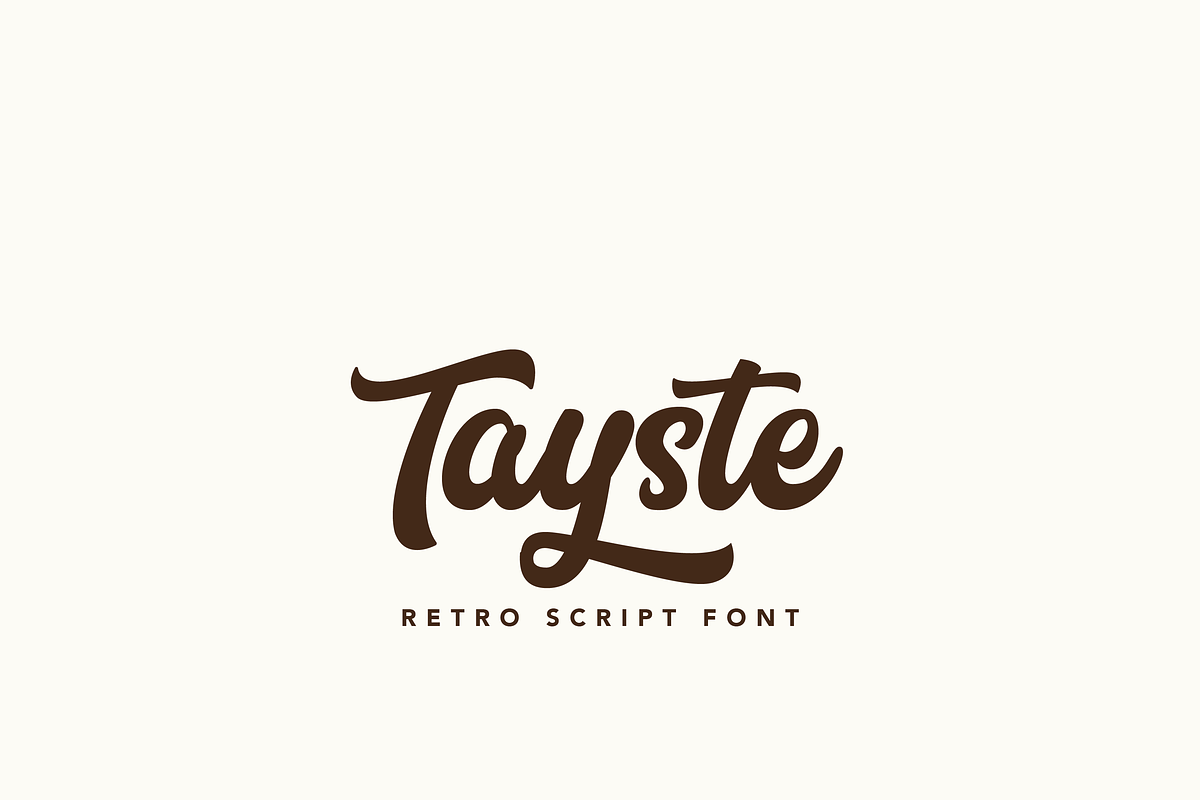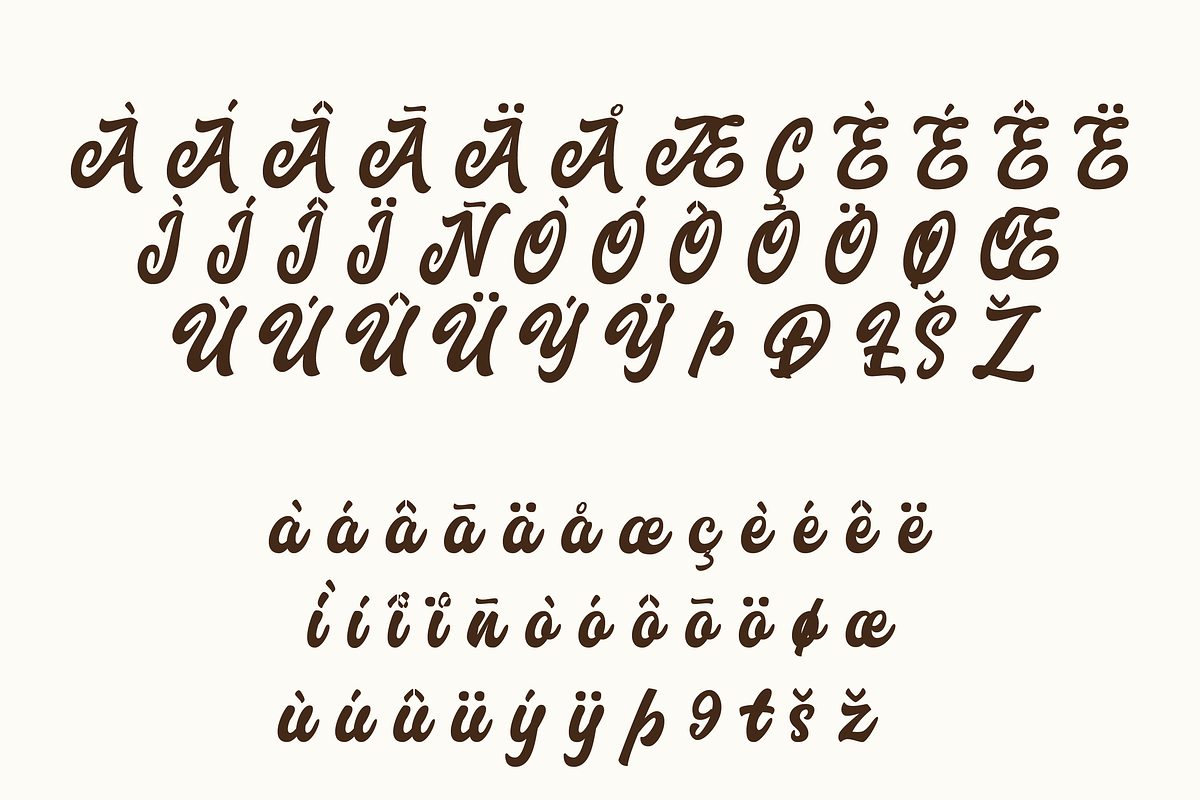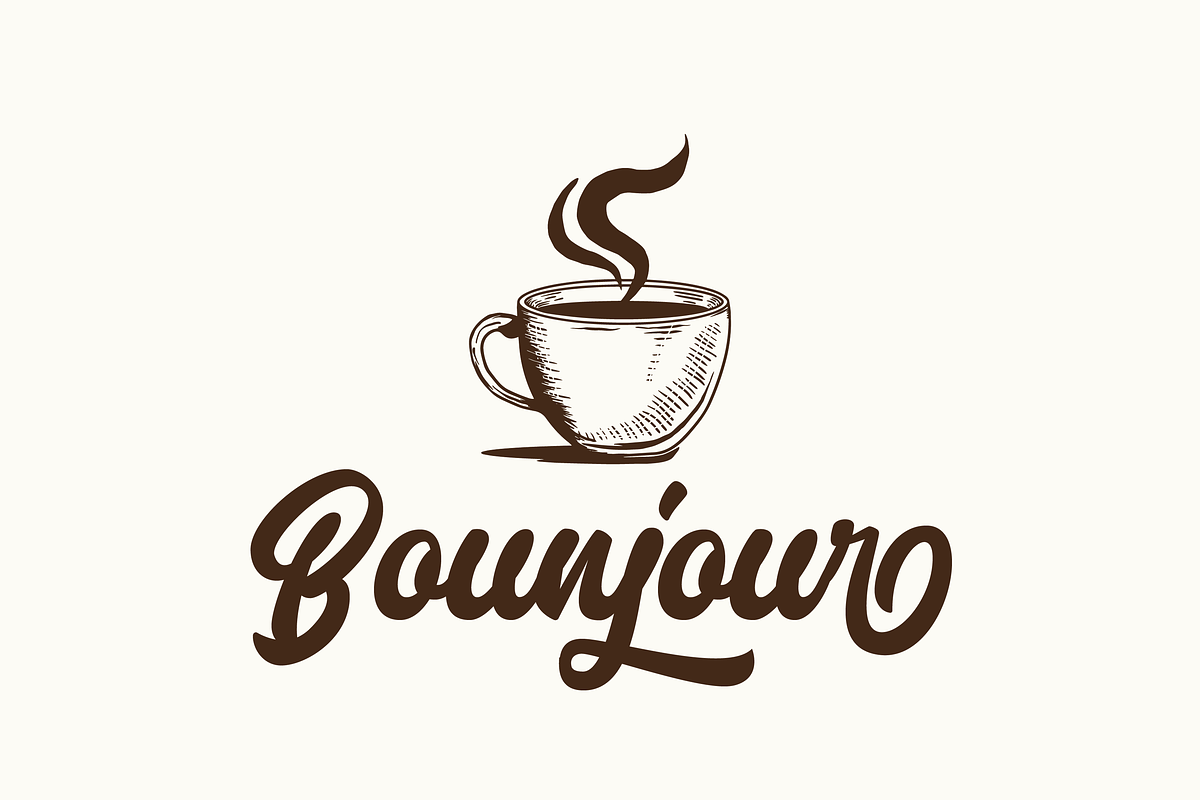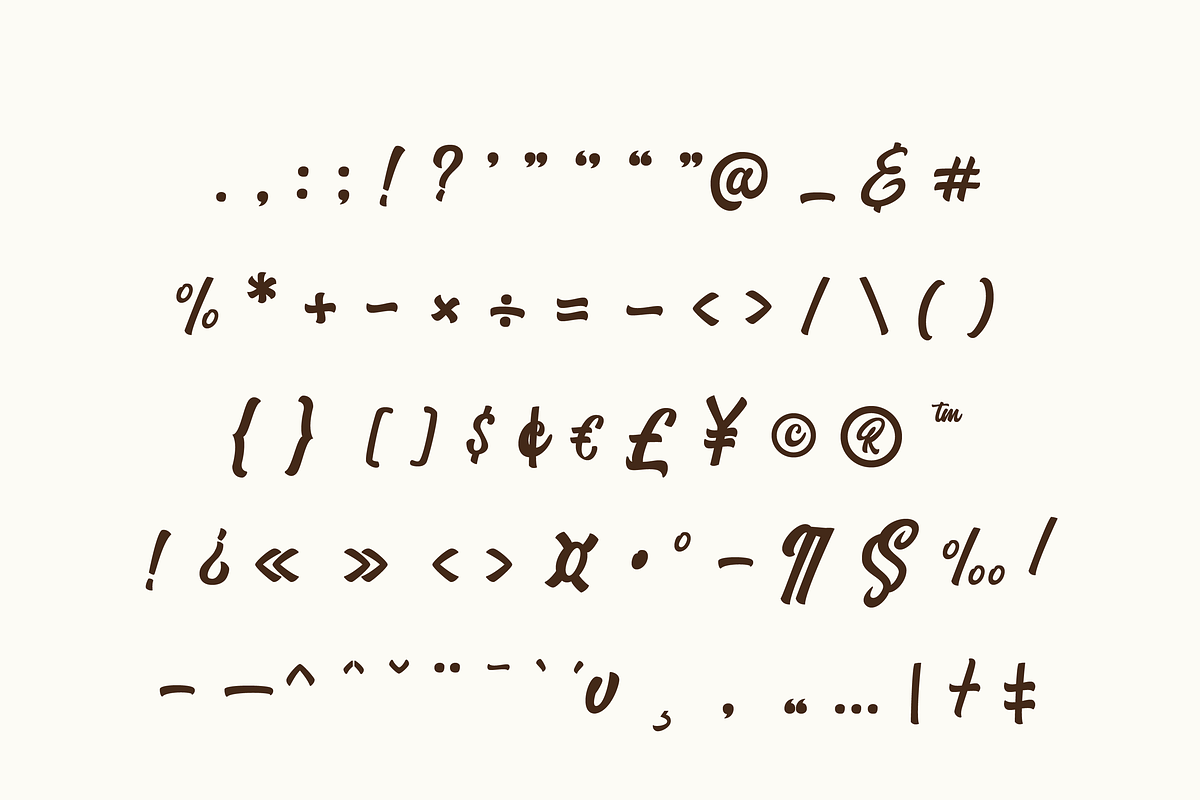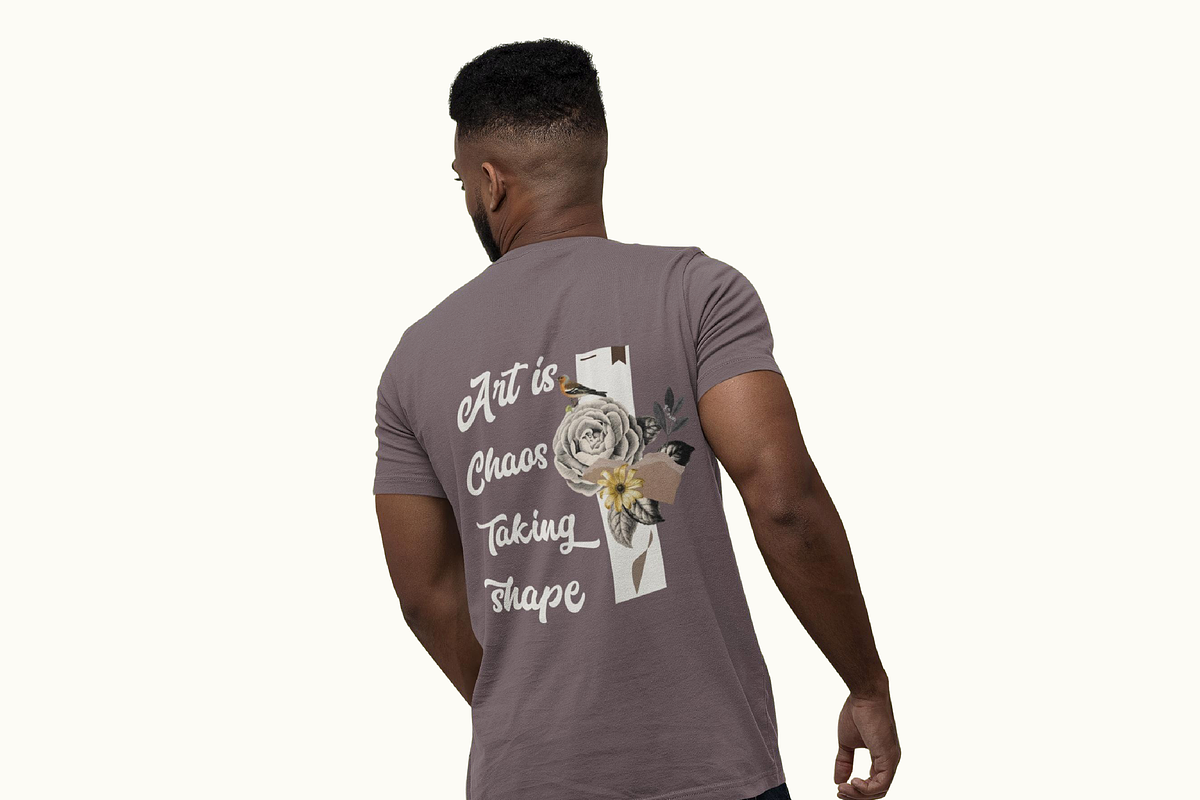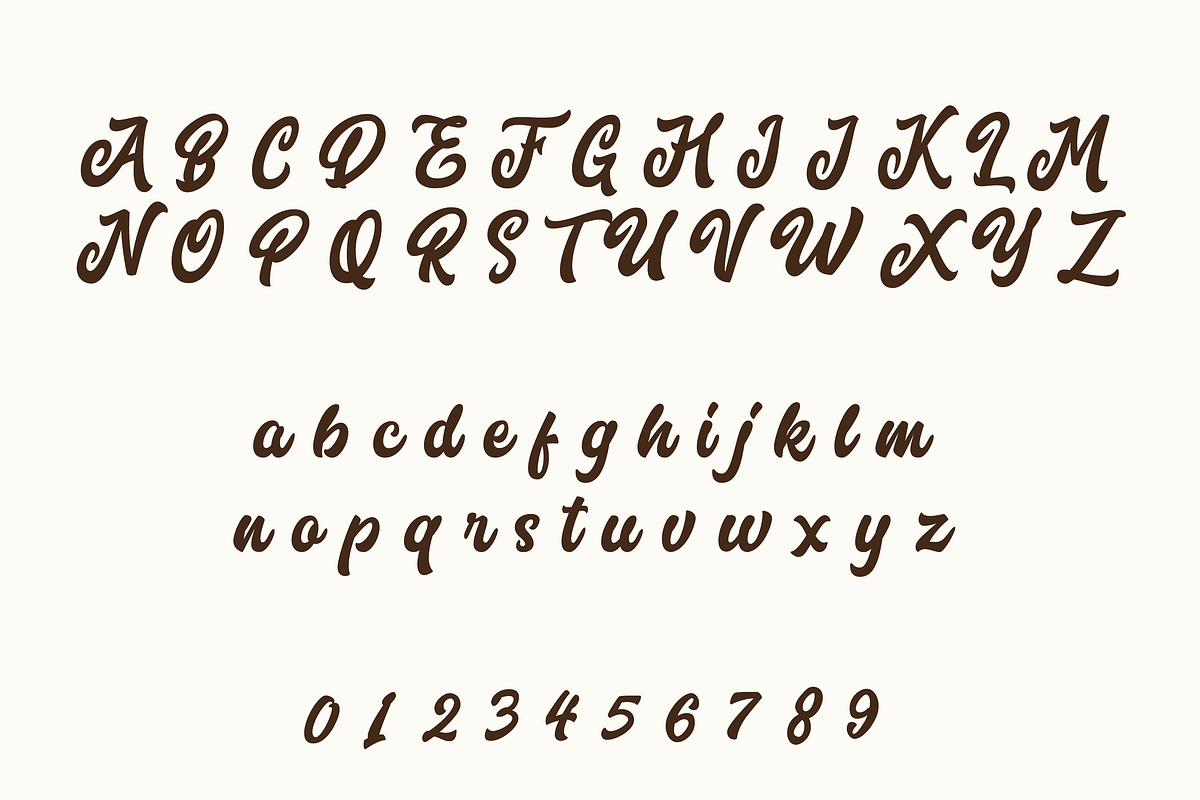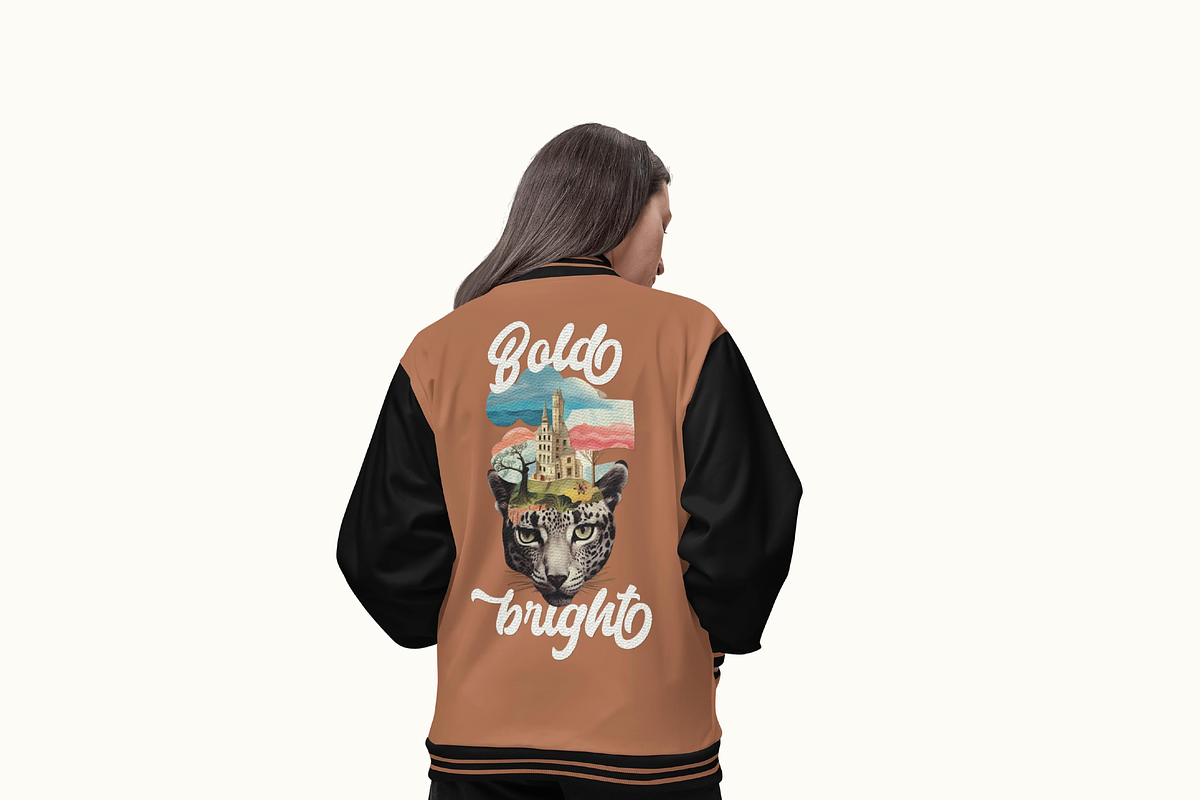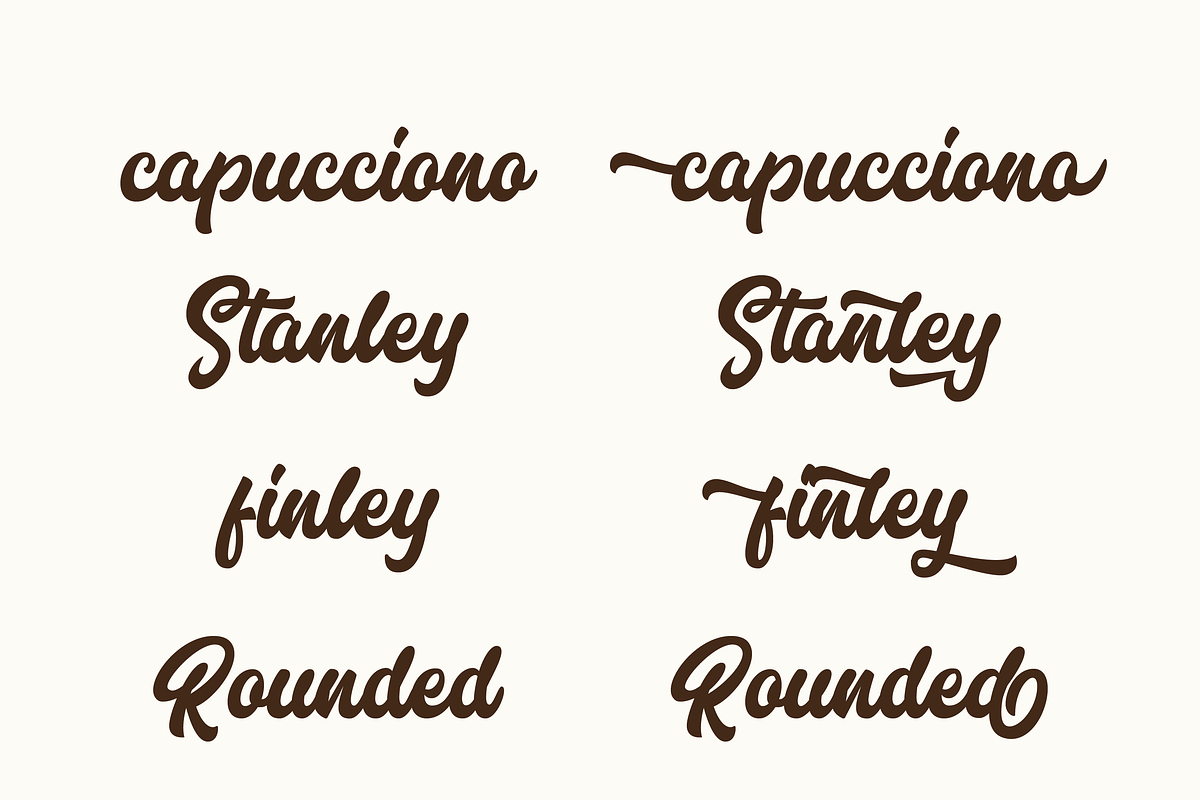
Tayste Script
Tayste Script – Playful Handwriting Script with Alternates
Tayste Script is a charming, hand-lettered cursive font designed to bring personality and warmth to a wide range of creative projects. Its lively letterforms and smooth curves give any design a friendly, approachable feel.
Tayste Script’s combination of playful charm and practical alternates makes it an excellent choice for anyone seeking a friendly, handcrafted look in their designs.